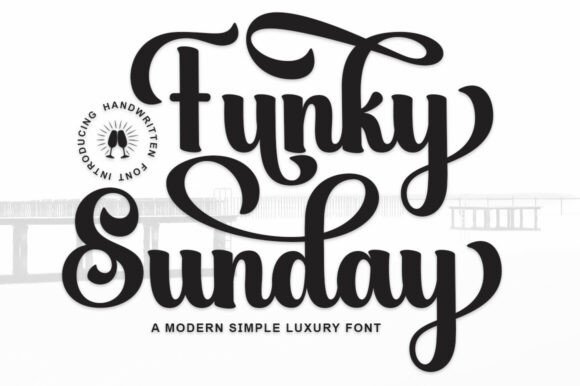
Funky Sunday Font: The Sweet and Cursive Handwritten Font for Your Design Needs
Funky Sunday is a beautiful, sweet, and cursive handwritten font that can add a touch of elegance and joy to your designs. This gentle font is perfect for a variety of design ideas, from branding and logos to wedding materials, greeting cards, and marketing promotions. In this article, we’ll explore the features and benefits of Funky Sunday Font and how it can elevate your designs to the next level.
What is Funky Sunday Font?
Funky Sunday Font is a type of script font that is characterized by its flowing, cursive strokes and sweet, handwritten feel. It’s a unique and stylish font that can add a touch of personality to your designs. The font is designed to be highly legible and versatile, making it perfect for a wide range of applications.
Key Features of Funky Sunday Font
- Sweet and Cursive Handwritten Style: Funky Sunday Font features a beautiful, cursive handwritten style that’s perfect for adding a touch of elegance and sophistication to your designs.
- Highly Legible: The font is designed to be highly legible, making it perfect for use in body text, headings, and titles.
- Versatile: Funky Sunday Font is a versatile font that can be used in a wide range of applications, from branding and logos to wedding materials, greeting cards, and marketing promotions.
- Fancy and Elegant yet Casual: The font has a unique ability to convey a sense of elegance and sophistication while still feeling casual and approachable.
Use Cases for Funky Sunday Font
Funky Sunday Font is a versatile font that can be used in a wide range of applications. Here are some use cases where the font can shine:
- Branding and Logos: Use Funky Sunday Font to create a unique and memorable brand identity that stands out from the crowd.
- Wedding Materials: The font is perfect for wedding invitations, wedding cards, and other wedding-related materials.
- Greeting Cards: Funky Sunday Font can add a touch of elegance and sophistication to greeting cards for special occasions.
- Fashion and Lookbook: Use the font to create stylish and fashionable lookbooks, fashion magazines, and other fashion-related materials.
- Marketing Promotions: Funky Sunday Font can be used to create eye-catching marketing materials, such as brochures, flyers, and posters.
Benefits of Using Funky Sunday Font
There are several benefits to using Funky Sunday Font in your designs:
- Unique and Memorable: The font’s unique and stylish design makes it perfect for creating memorable and eye-catching designs.
- Elegant and Sophisticated: Funky Sunday Font can add a touch of elegance and sophistication to your designs, making them perfect for high-end brands and luxury products.
- Versatile: The font’s versatility makes it perfect for use in a wide range of applications.
- Easy to Read: Funky Sunday Font is highly legible, making it perfect for use in body text and other applications where readability is key.
Tips for Using Funky Sunday Font
Here are some tips for using Funky Sunday Font in your designs:
- Use it Sparingly: While Funky Sunday Font is a beautiful font, it’s best to use it sparingly to avoid overwhelming the reader.
- Pair it with Other Fonts: The font pairs well with other fonts, so feel free to experiment with different font combinations to create a unique look.
- Adjust the Size and Color: Experiment with different sizes and colors to find the perfect combination for your design.
- Use it for Headings and Titles: Funky Sunday Font is perfect for use in headings and titles, where its elegant and sophisticated design can shine.
Funky Sunday Font is a beautiful, sweet, and cursive handwritten font that’s perfect for adding a touch of elegance and sophistication to your designs. Its versatility, legibility, and unique design make it perfect for use in a wide range of applications, from branding and logos to wedding materials, greeting cards, and marketing promotions. By following the tips outlined in this article, you can make the most of Funky Sunday Font and create stunning designs that leave a lasting impression.
- What is Funky Sunday Font? Funky Sunday Font is a sweet and cursive handwritten font that’s perfect for adding a touch of elegance and sophistication to your designs.